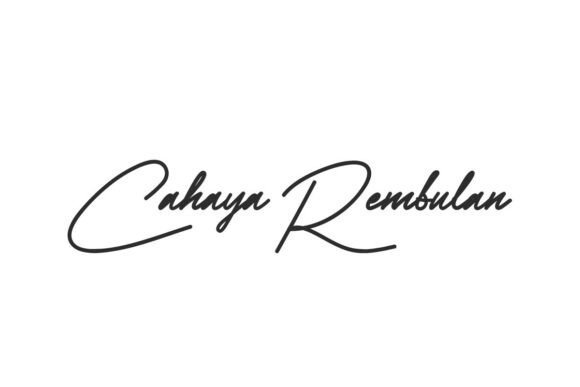
Unleashing the Elegance of the Cahaya Rembulan Font Imagine you’re browsing through a high-end fashion magazine, and you stumble upon a beautifully crafted headline that makes you pause and admire its beauty. The words seem to dance on the page, with each letter flowing effortlessly into the next. This is the magic of the Cahaya…